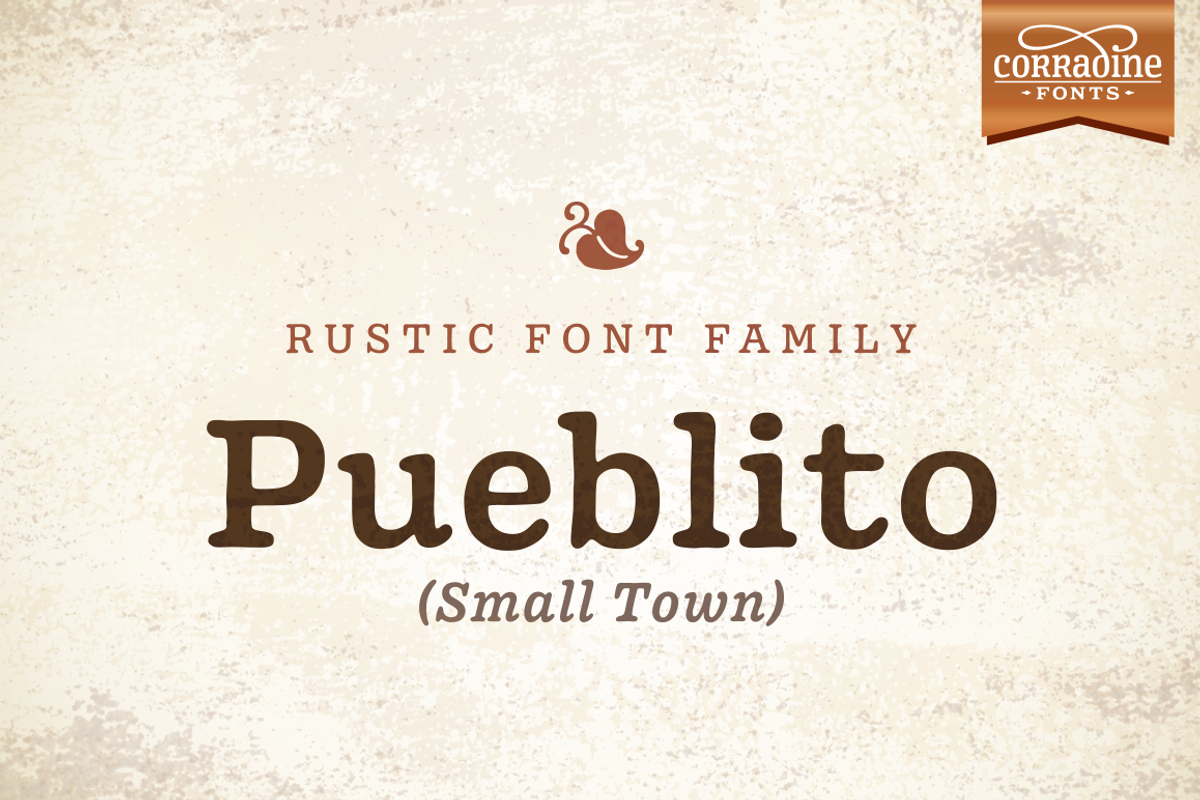
Pueblito Font Family Free Download is a beautifully crafted serif typeface family that blends classic charm with contemporary versatility. Please note, you are required to purchase this font for commercial use. It is available for free download for testing and personal projects only.
Inspired by traditional editorial typography, Pueblito offers multiple weights and styles—perfect for book design, branding, magazines, packaging, and elegant website layouts. Its refined serifs, balanced proportions, and subtle curves create a reading experience that is both comfortable and visually striking.